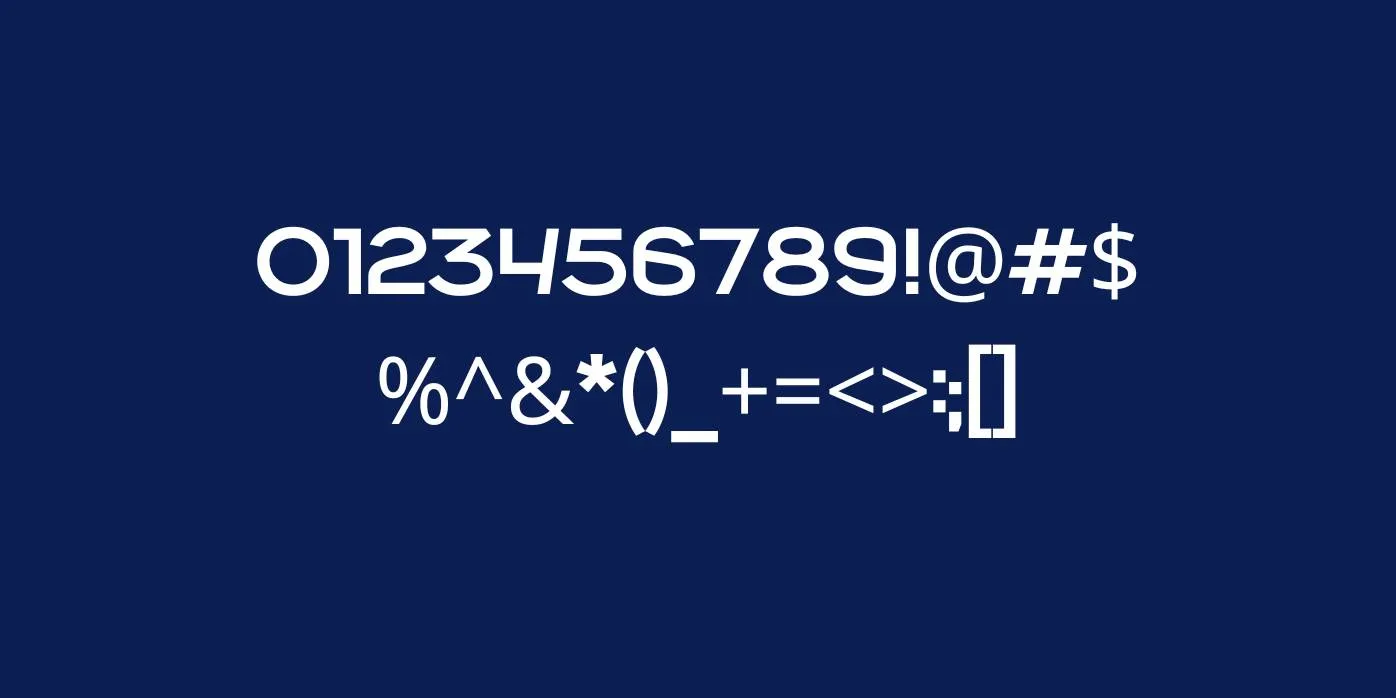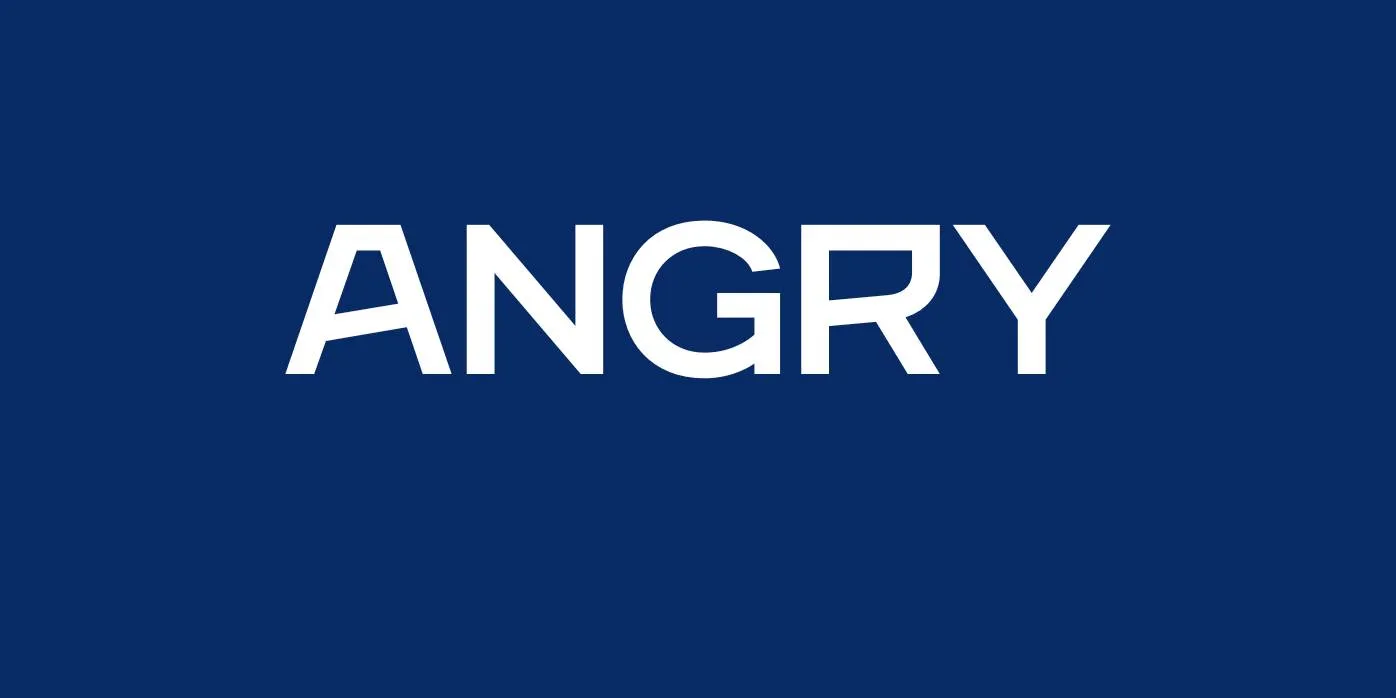
Angry Font
Let’s talk about a very interesting typeface the Angry Font. This stunning font was designed by Igor Stepanchenko. You can make so many designs by using this font. It is a very unique Sans-Serif font and you can make many designs by using this font.
It contains different features which makes it perfect for projects. This font contains 142 characters, 113 glyphs, and 1000 units per Em. The weight of the font is Semi-Bold and its width is expanded. Unicode supported by this font is 2.0 and BMP only.
An online generator tool also supports this font which you can change your simple designs into stylish looks even without downloading the font. You can copy and paste your text online into it. You can use this font for pairing with other fonts like hando font to give your projects a more attractive and strong look by using this font. It supports file formats TTF (True Type Font ) and OTF (Open Type Font).
This font can be used on many devices such as PC, MAC, and Linux. Usage You can use this font for making many different designs. It has capital letters, punctuations, symbols, and special characters which makes it perfect for different projects. You can use this font for making headings to give an attractive look to your projects.
You can make amazing logos by using this font. For making website headers you can also use this font. In different graphic applications like Adobe Photoshop, CSS, and Canva you can design new projects as well. So many website designs and graphic designs can also be made by using this font.
You can make eye-catching prints on T-shirts by using this font. It is good for both print and digital media. You can use it for branding and product packing purposes also. This font is a good choice for designing game graphics.